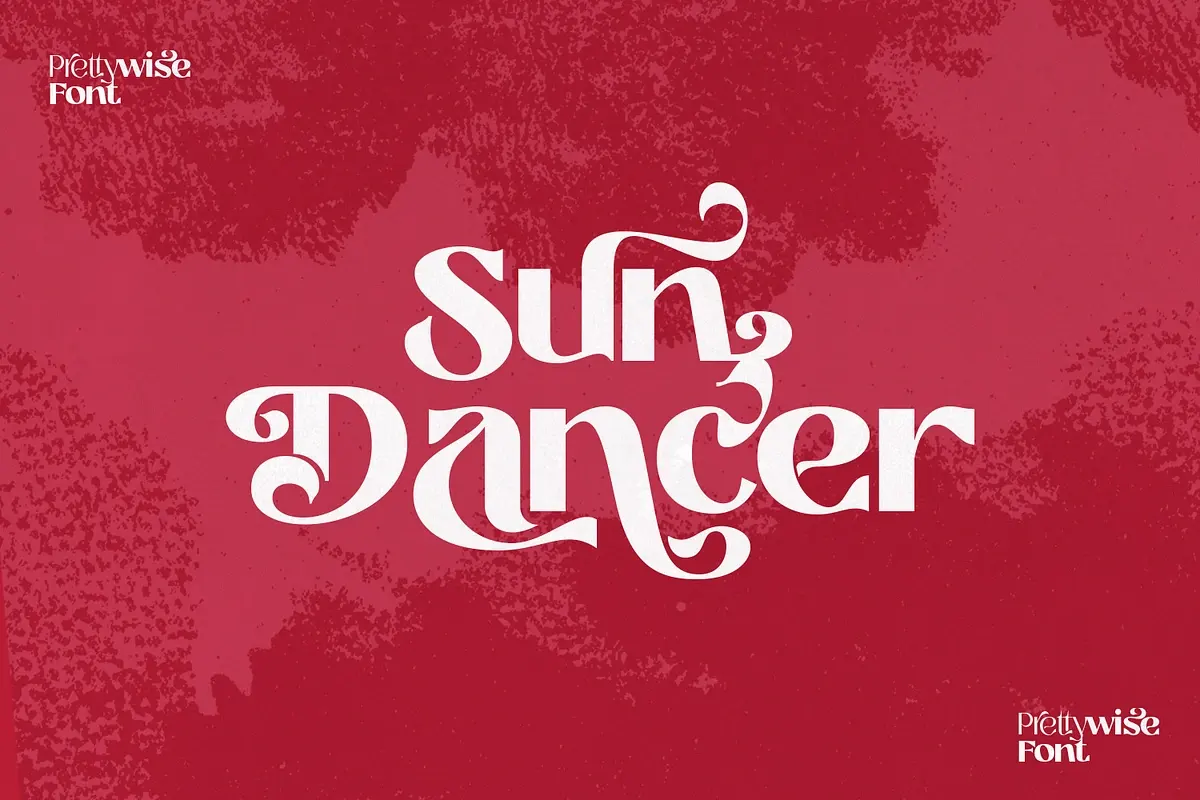
Prettywise – Modern Retro Family Font Free Download is a vibrant and versatile typeface family that perfectly blends retro charm with a clean, modern edge. With multiple weights and styles, Prettywise is ideal for logos, headlines, posters, packaging, and branding projects that need a nostalgic yet contemporary feel.
Inspired by groovy '70s aesthetics and bold typography trends, this font family features smooth curves, stylish alternates, and playful personality—all while maintaining great readability. It’s perfect for designers who want to infuse their work with energy, creativity, and timeless style.